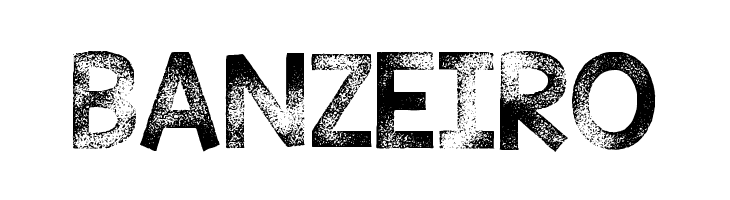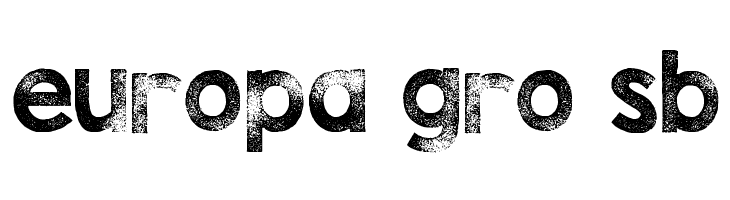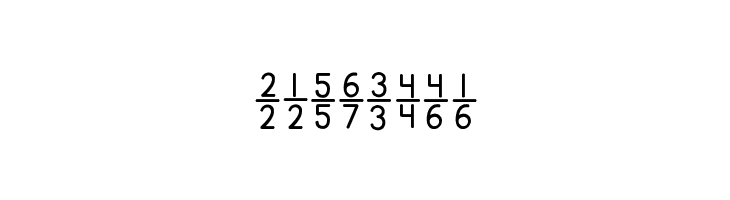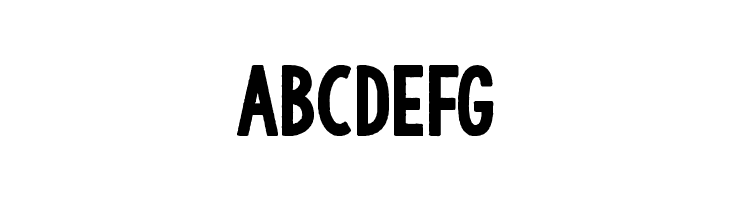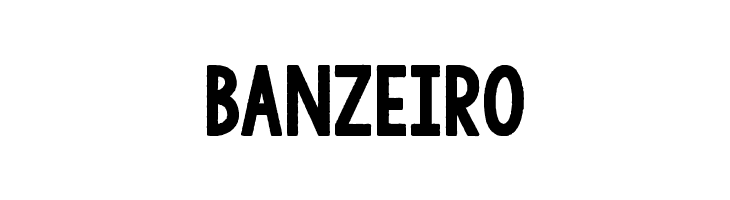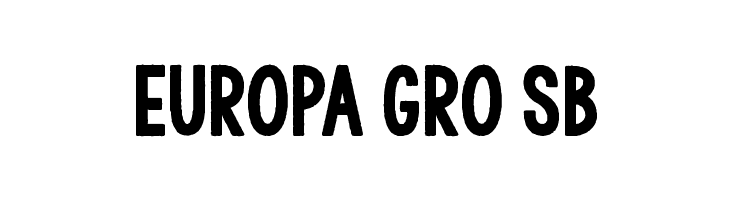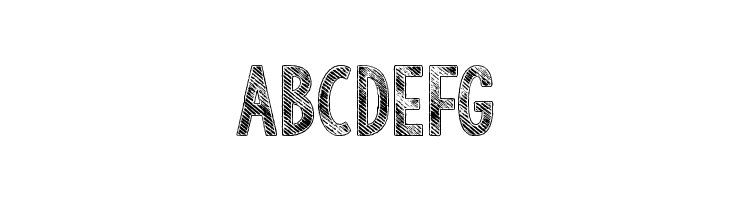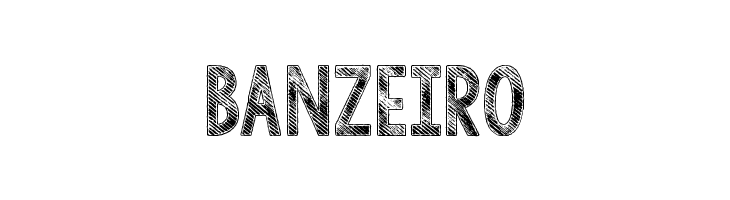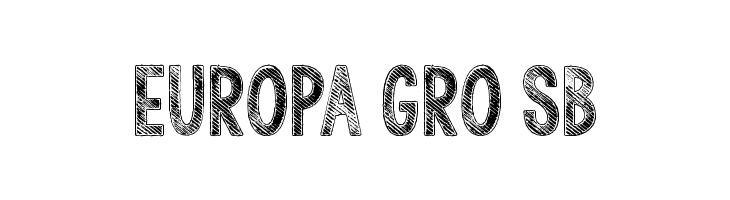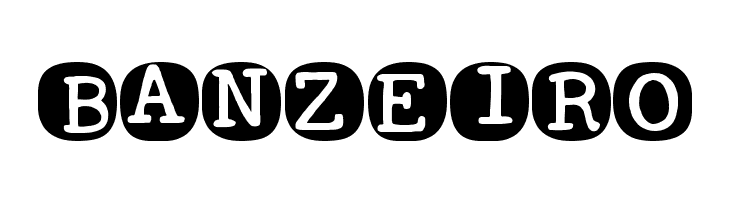
( Fonts by www.kimberlygeswein.com - Kimberly Geswein )
A playful, handwritten-style italic font with smooth, rounded strokes.
( Fonts by www.kimberlygeswein.com - Kimberly Geswein )
A playful, italicized font ideal for educational materials.
( Fonts by www.kimberlygeswein.com - Kimberly Geswein )
A playful, educational font with bold, rounded characters ideal for teaching handwriting.
( Fonts by www.kimberlygeswein.com - Kimberly Geswein )
A playful, rounded font with a handwritten style, ideal for educational materials.
( Fonts by www.kimberlygeswein.com - Kimberly Geswein )
A clean, rounded font with a primary school penmanship style.
( Kimberly Geswein - kimberlygeswein.com )
A clean, rounded font with a handwritten style, perfect for educational use.
( Fonts by www.kimberlygeswein.com - Kimberly Geswein )
A clear, rounded font ideal for teaching penmanship to young learners.
( Fonts by www.kimberlygeswein.com - Kimberly Geswein )
A playful, rounded font with bold, smooth curves and consistent spacing.
( Fonts by www.kimberlygeswein.com - Kimberly Geswein )
A playful, bold outline font with rounded edges and a bubble-like appearance.
( Fonts by www.kimberlygeswein.com - Kimberly Geswein )
A playful, bold font with characters enclosed in triangular pennants, perfect for festive designs.
( Fonts by www.kimberlygeswein.com - Kimberly Geswein )
A playful, sketch-style font with bold, hand-drawn characters.
( Fonts by www.kimberlygeswein.com - Kimberly Geswein )
A playful, hand-drawn font with a textured, sketch-like appearance.
( Fonts by www.kimberlygeswein.com - Kimberly Geswein )
A playful, hand-drawn font with textured diagonal lines and bold, rounded characters.
( Fonts by www.kimberlygeswein.com - Kimberly Geswein )
A bold, playful, hand-drawn font with a casual and friendly style.
( Fonts by www.kimberlygeswein.com - Kimberly Geswein )
A geometric, modular font with a playful and modern design.
( Fonts by www.kimberlygeswein.com - Kimberly Geswein )
A bold, playful font with rounded edges and a whimsical style.
( Fonts by www.kimberlygeswein.com - Kimberly Geswein )
A playful, bold font with bubble-like, rounded outlines.
( Fonts by www.kimberlygeswein.com - Kimberly Geswein )
A modern, rounded font ideal for clear numerical fractions and symbols.
( Fonts by www.kimberlygeswein.com - Kimberly Geswein )
A modern sans-serif font designed for clear and readable fraction display.
( Fonts by www.kimberlygeswein.com - Kimberly Geswein )
A bold, distressed font with a vintage stamp-like appearance.
A bold, distressed font with a vintage, stamped appearance.
( kimberlygeswein.com )
A playful, bold font with characters in rounded black squares, offering a modern and retro vibe.
( Fonts by www.kimberlygeswein.com - Kimberly Geswein )
A playful, bold font with rounded bubble backgrounds for each character.
( Fonts by www.kimberlygeswein.com - Kimberly Geswein )
A playful, handwritten font with a casual and friendly appearance.
( Fonts by www.kimberlygeswein.com - Kimberly Geswein )
A bold, condensed sans-serif font with clean lines and high legibility.
( Fonts by www.kimberlygeswein.com - Kimberly Geswein )
A bold, decorative font with dot accents above each character.
( Fonts by Kimberly Geswein - kimberlygeswein.com )
Hand-drawn decorative frames and comic elements in a playful style.
( Fonts by Kimberly Geswein - kimberlygeswein.com )
A playful, handwritten script font with elegant, flowing strokes.
( Fonts by Kimberly Geswein - kimberlygeswein.com )
A playful, striped, handwritten cursive font with a whimsical touch.
( Fonts by www.kimberlygeswein.com - Kimberly Geswein )